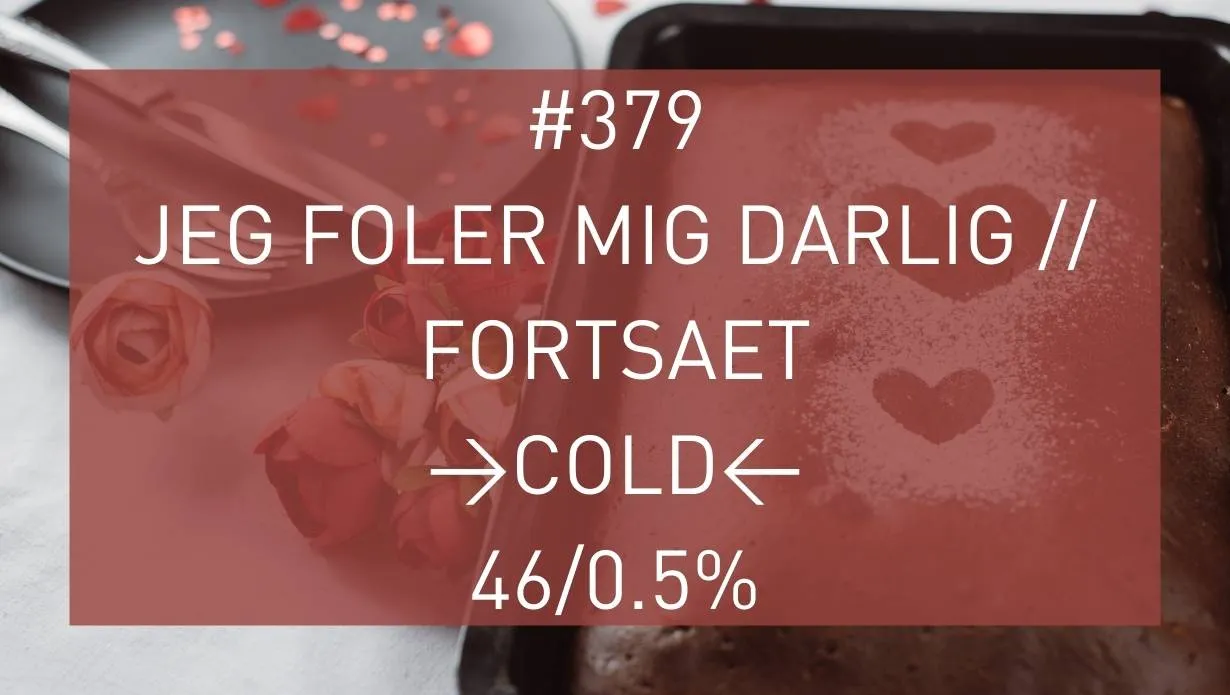
FF Din Font is a sans-serif typeface designed by Ferdinand Ulrich and released by FontFont in 1995. This font is especially popular for use in signage, headings, and corporate identities. This typeface has been included in the FontFont library since its inception in 1990. The design is based on the 19th-century German industrial typeface called DIN 1451.
This font is available in OpenType format, which includes support for modern typographic features such as discretionary ligatures, old-style figures, and stylistic alternates. This typeface is very similar to Hobo Font
FF Din Font Info
| Name | FF Din Font |
| Designer | Ferdinand Ulrich |
| Category | Sans Serif |
- FF DIN Thin
- FF DIN Extra-Light
- FF DIN Light
- FF DIN Regular
- FF DIN Medium